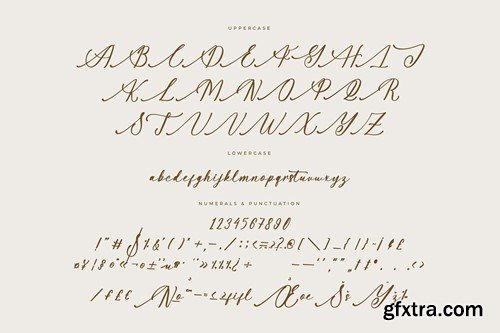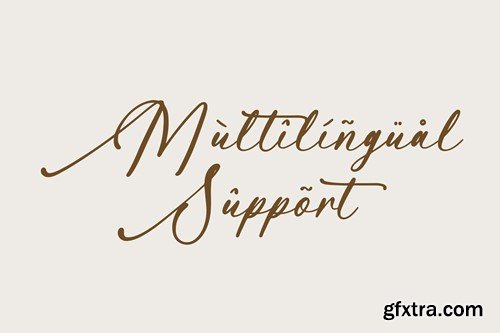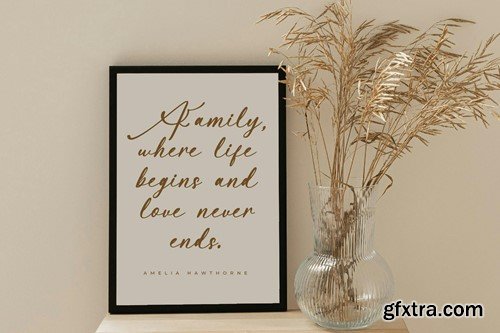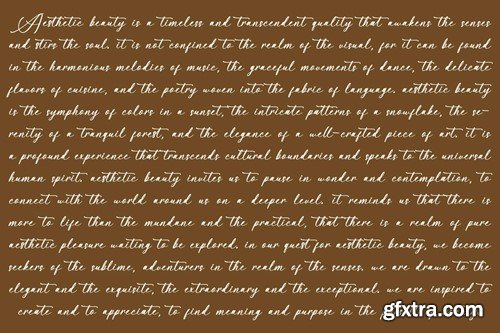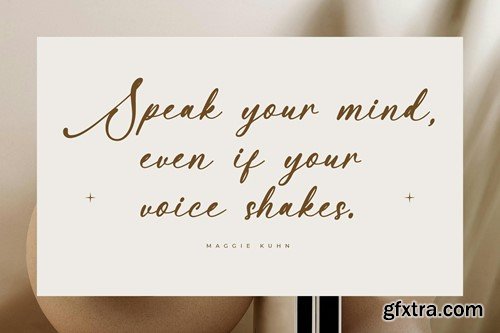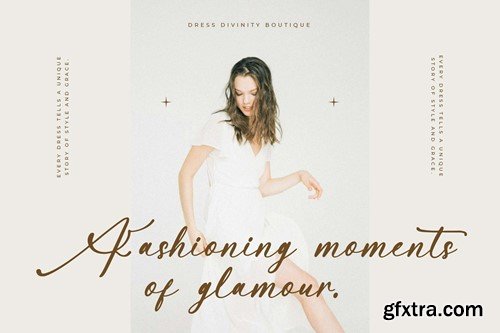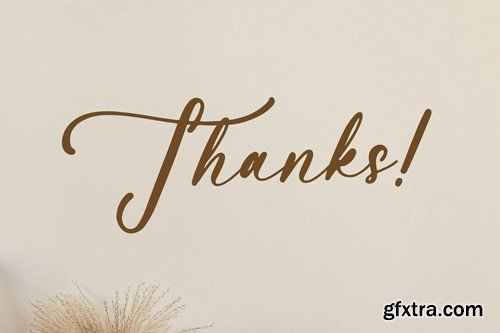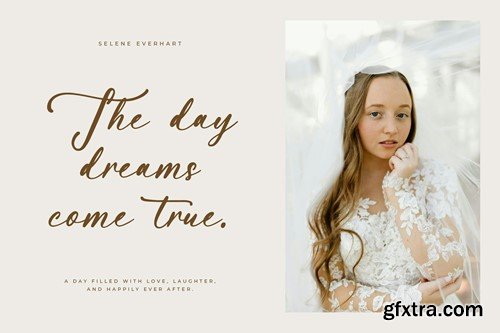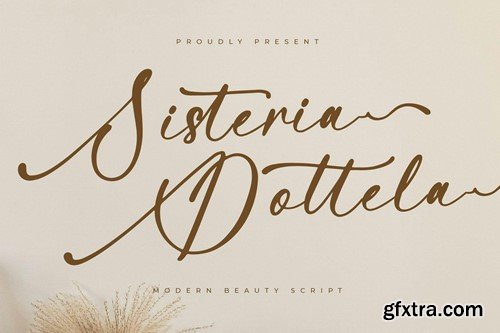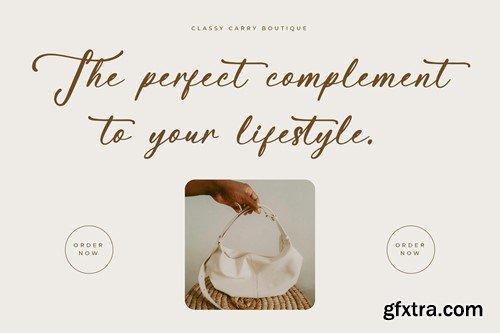
Sisteria Dottela Modern Script Font
Hi ladies & gentlemen, this is one of our fonts suitable to complement your digital and printed creative products. This font is perfect for posters, social media posts, branding, personal projects, etc.